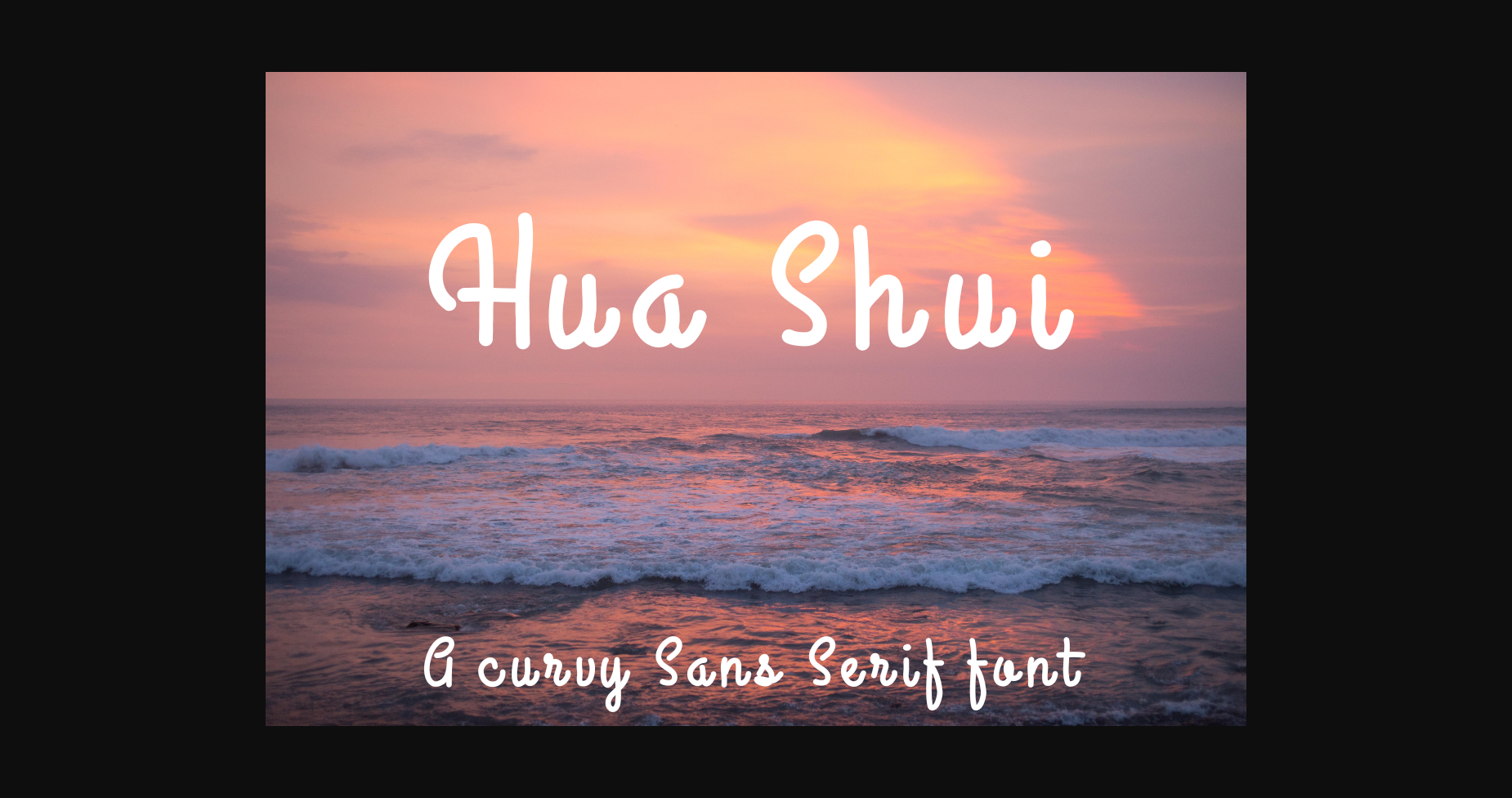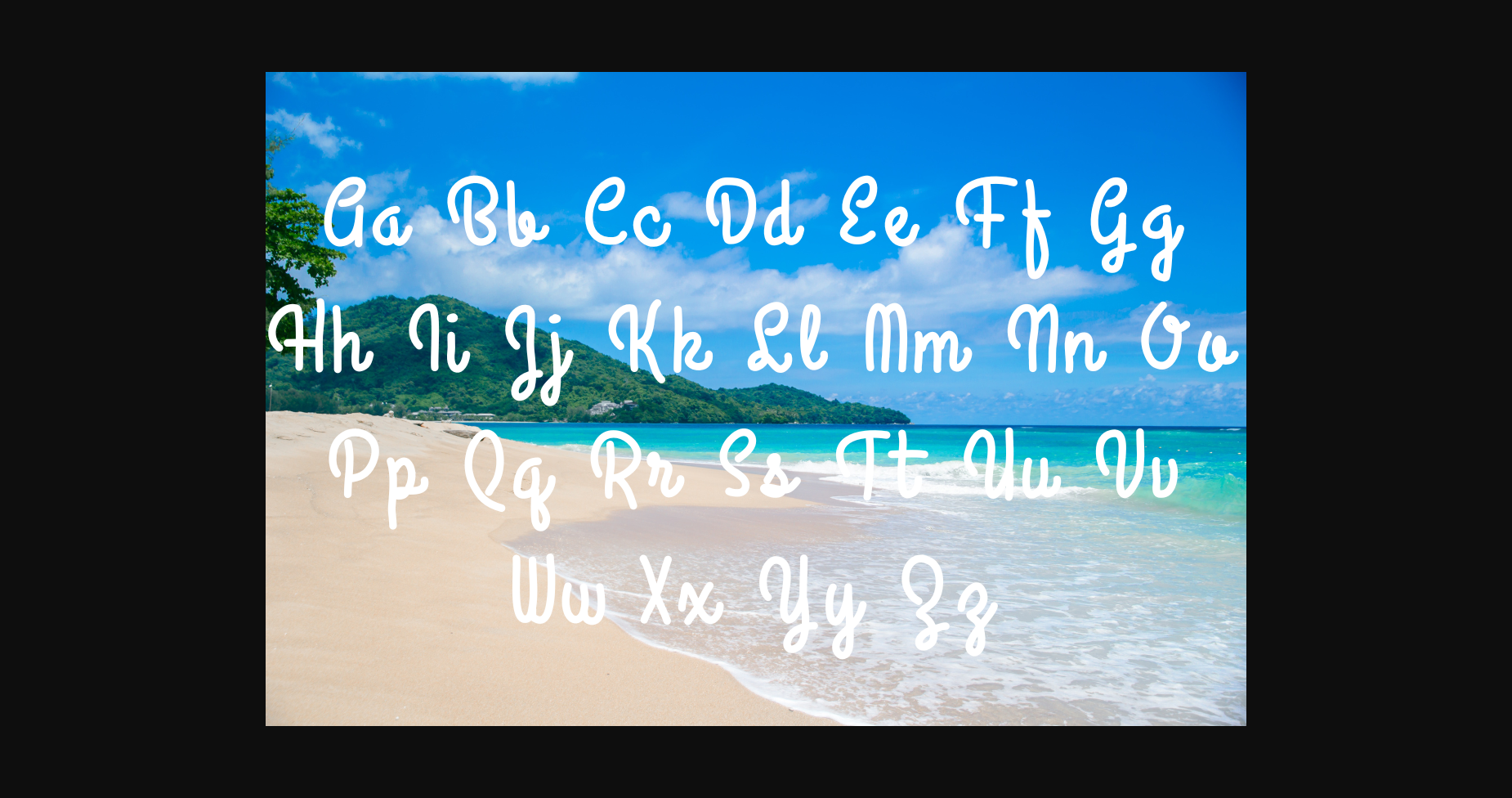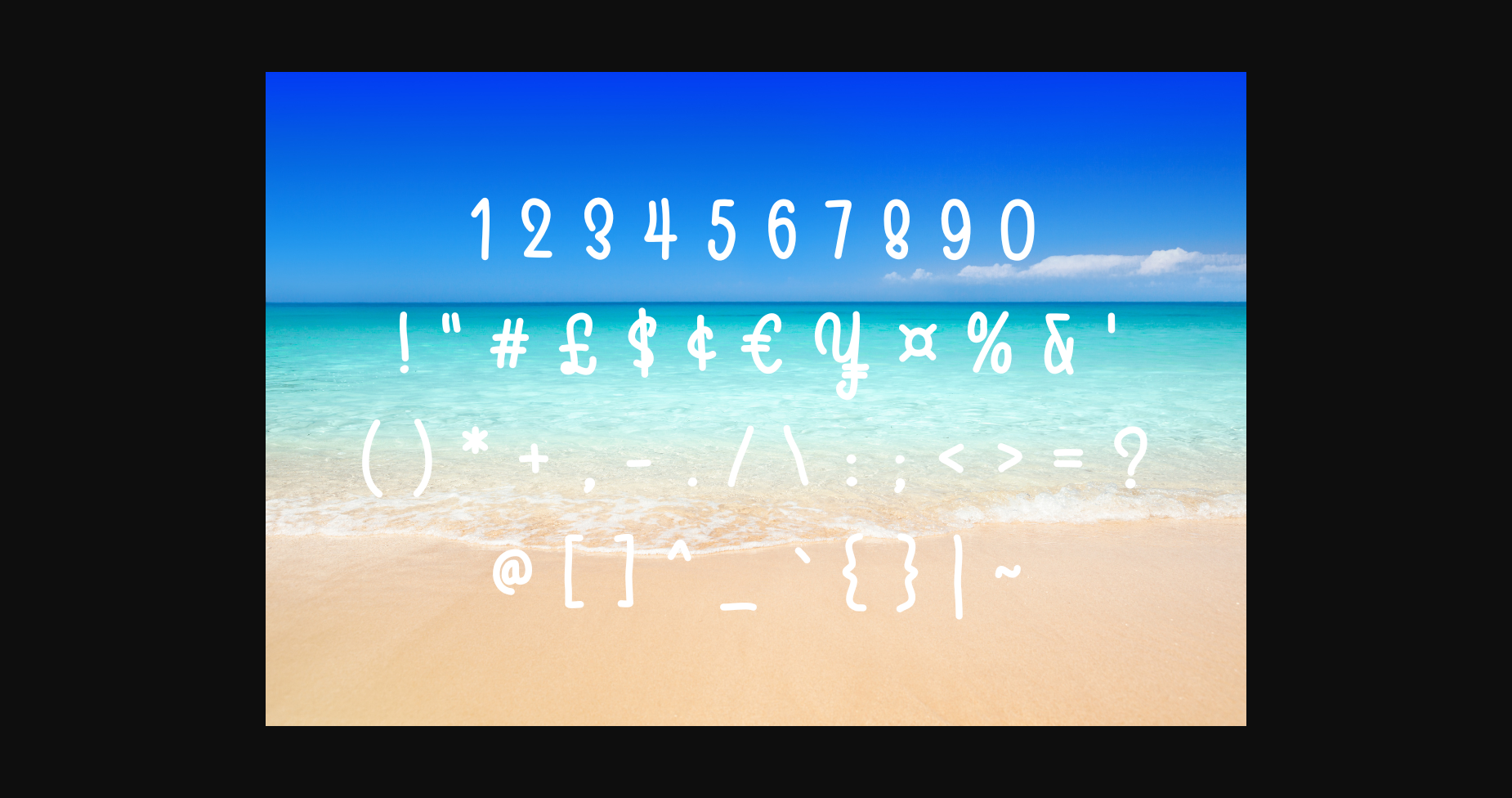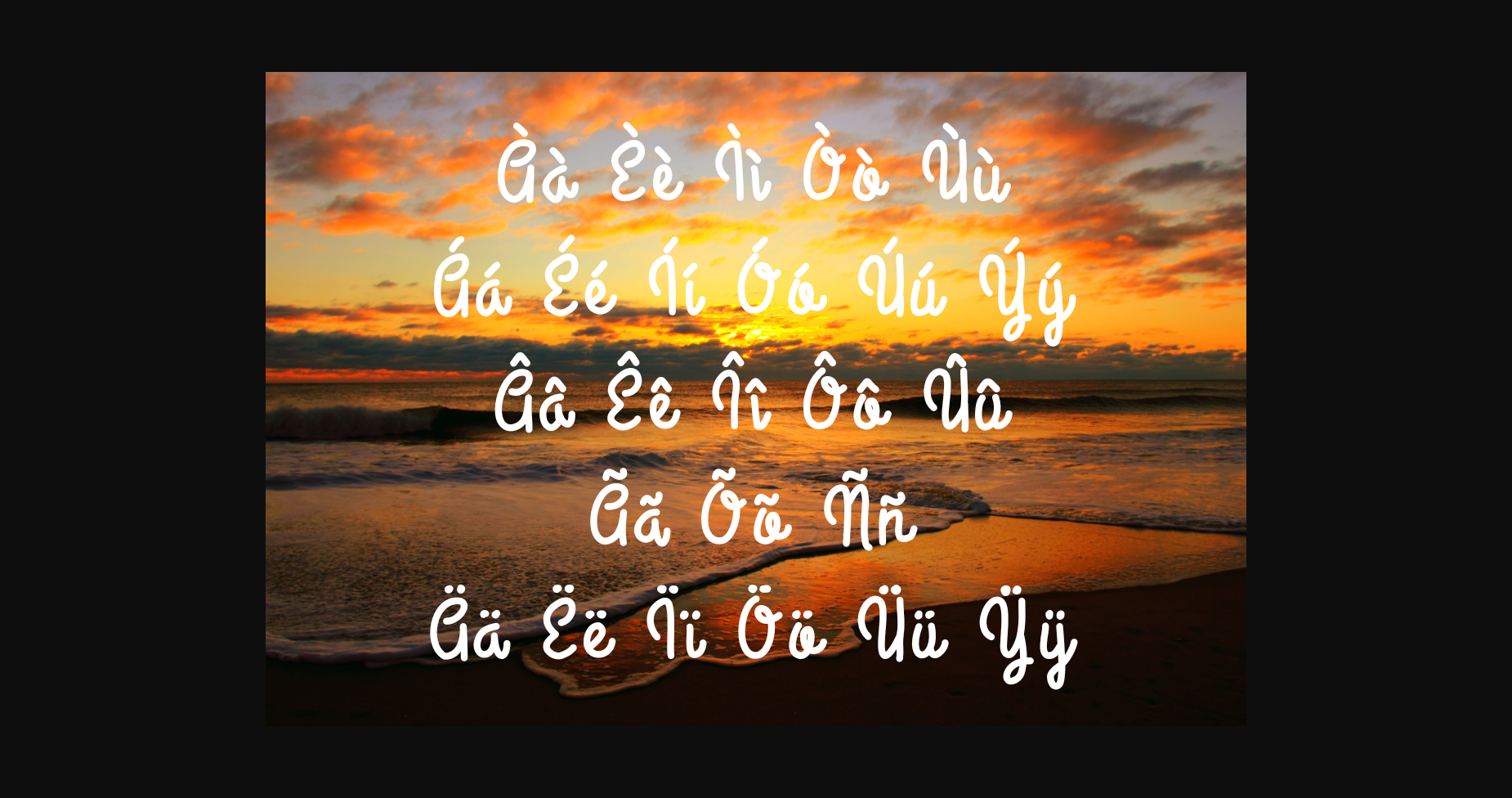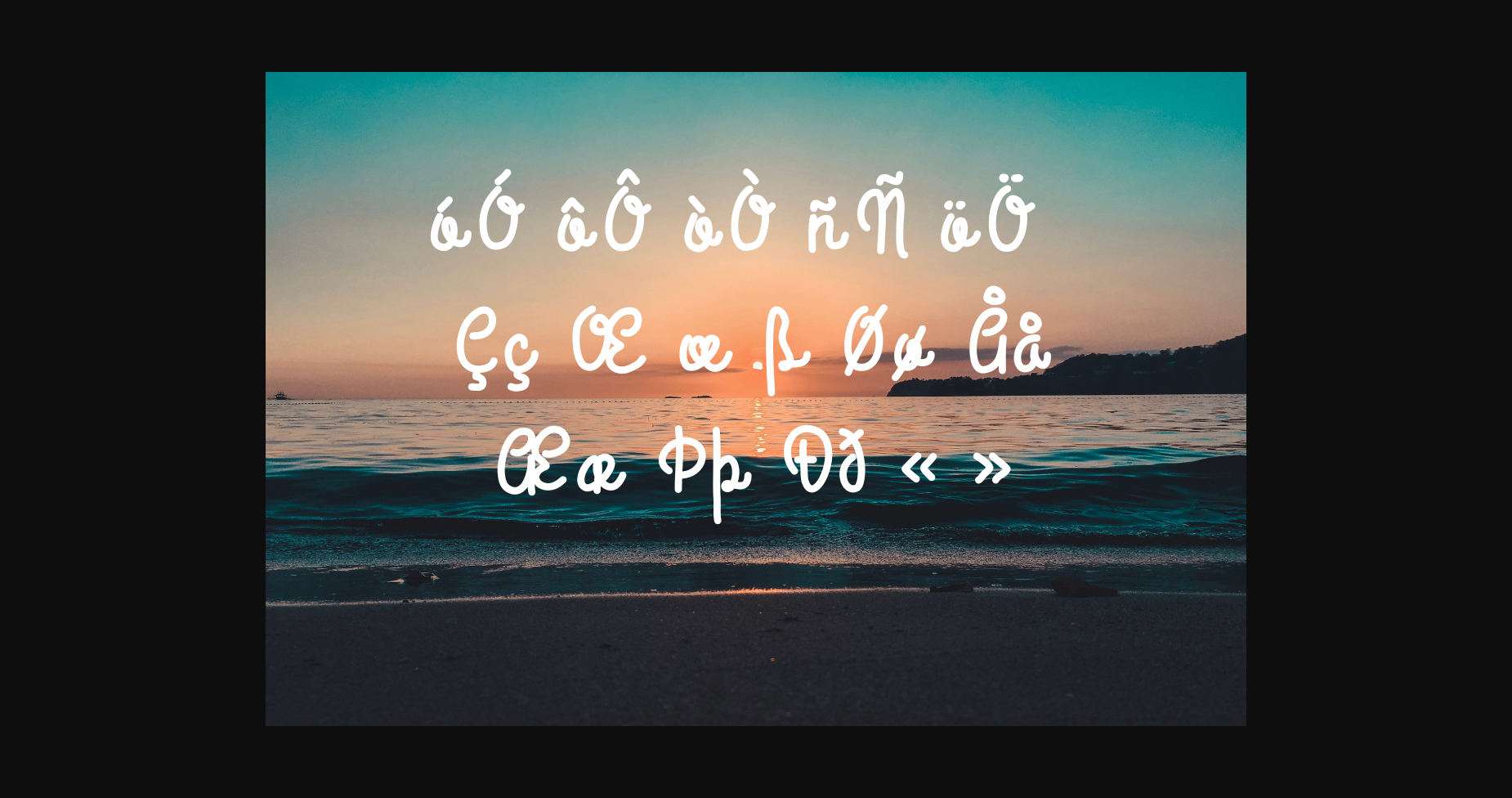
HomeSans Serif FontsHua Shui Font Sans Serif Fonts Hua Shui Font FacebookXPinterestWhatsApp 1 of 7 ... Hua Shui Font Poster 2... Hua Shui Font Poster 3... Hua Shui Font Poster 4... Hua Shui Font Poster 5... Hua Shui Font Poster 6... Hua Shui Font Poster 7... About Hua Shui Font Hua Shui is a curvy Sans Serif font. Hua means splendid, illustrious in the masculine, and flower, blossom in the feminine. Shui means water. Perfect for those projects that need a stylish curvy typeface. DOWNLOAD NOW People also explored Akageeh Font Melon Kundang Font Brothels Font Restyla Script Font Black Pastel Font Saissant Jatheya Font Calliretta Font Raindy Font 249 0 TagsHua Shui Font Previous articleSunflower Garden FontNext articleSigosebur Font LEAVE A REPLY Cancel reply Comment: Please enter your comment! Name:* Please enter your name here Email:* You have entered an incorrect email address! Please enter your email address here Website: Save my name, email, and website in this browser for the next time I comment. Personal Use Free Creativo Personal Use Free Read more about this font Amrina Personal Use Free Read more about this font The Fourth Avenue Personal Use Free Read more about this font Arnprior Personal Use Free Read more about this font BLOG Free Fonts Risk: Why Free Fonts Can Be Dangerous for Designers Free Fonts Risk: Why Free Fonts Can Be Dangerous for Designers Using free fonts is a common practice in web and graphic design. However, the... The 10 Best Handwriting Fonts to Add Personality to Your Designs Transform Your Website: Elevate Your Typography with 7 Best Web Font Generators Using Fonts in Digital Marketing: Tips to Strengthen Your Brand Identity